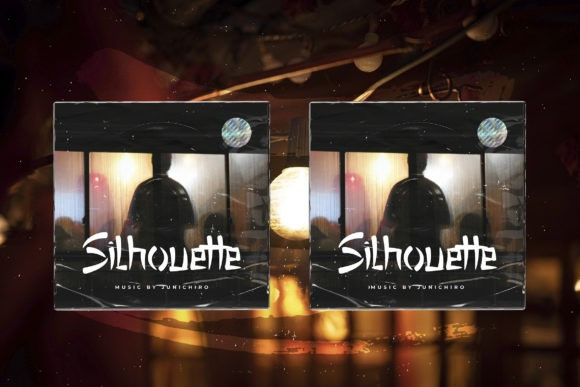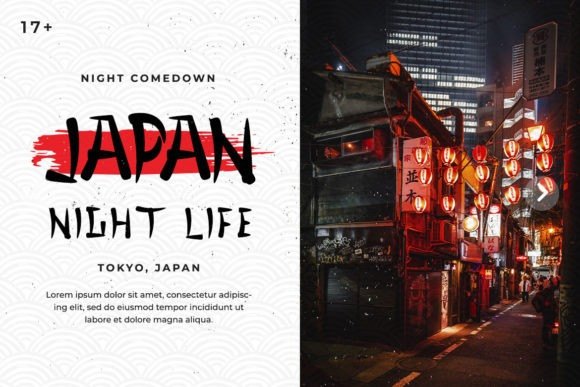
Murasamu Font
Murasamu Font is an incredibly unique, Japanese inspired display font. It will look stunning on any food menu, poster flyer or print.
Use this font for your designs and explore its endless possibilities.